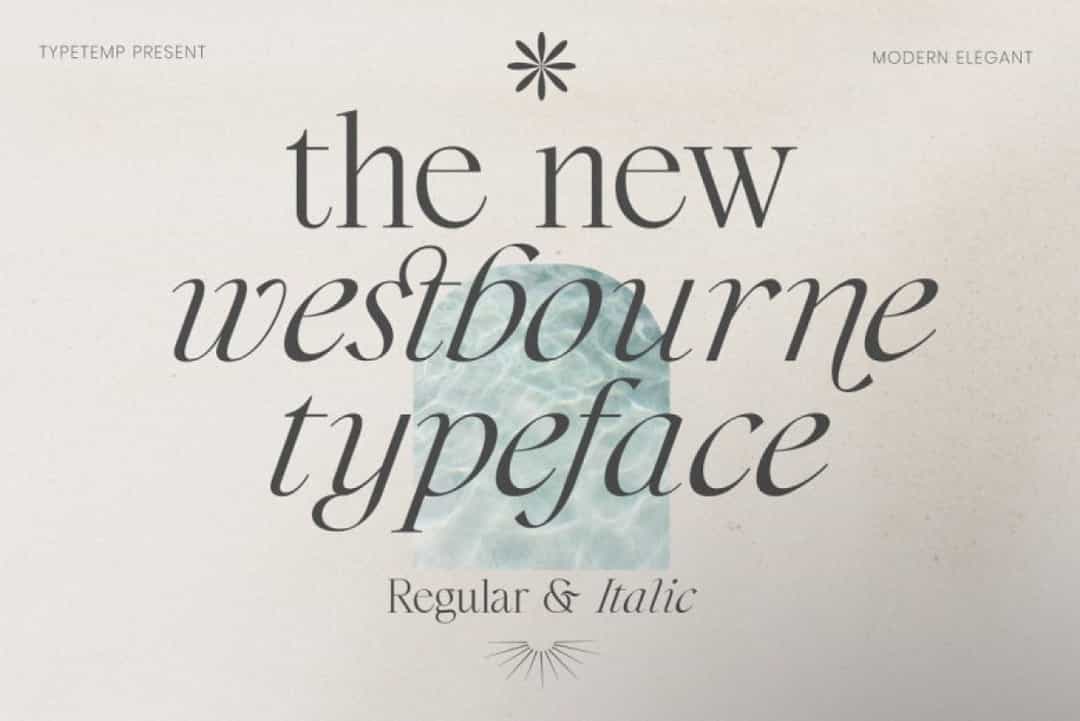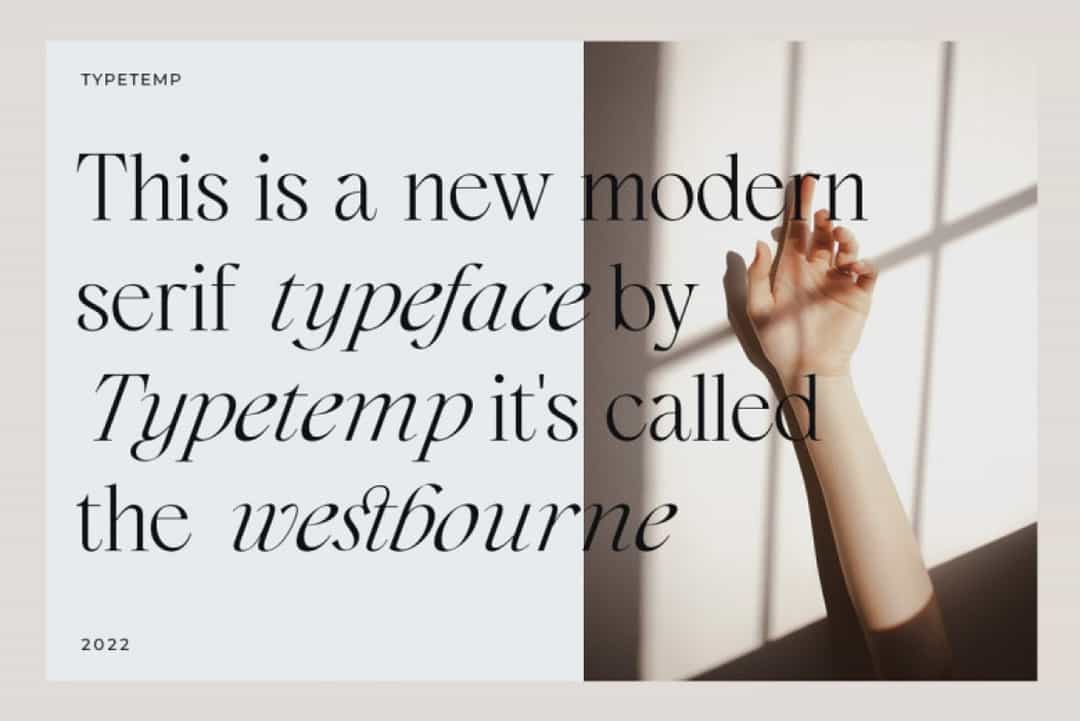
Westbourne is an elegant serif font with a contemporary appearance both italic and regular, featuring ligatures and alternatives which can help create beautiful posters, logos, quotes blogs as well as branding projects magazine images wedding invitations wedding cards etc.